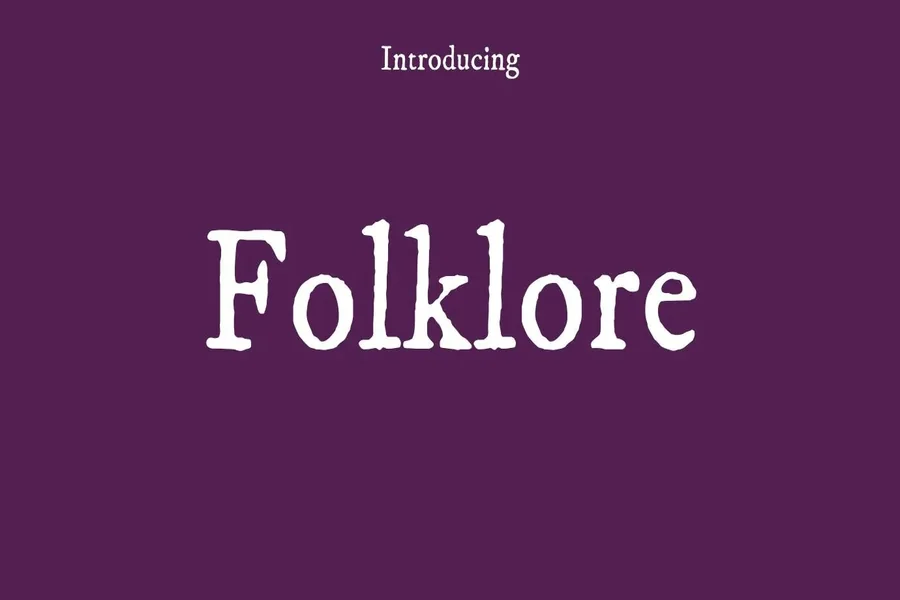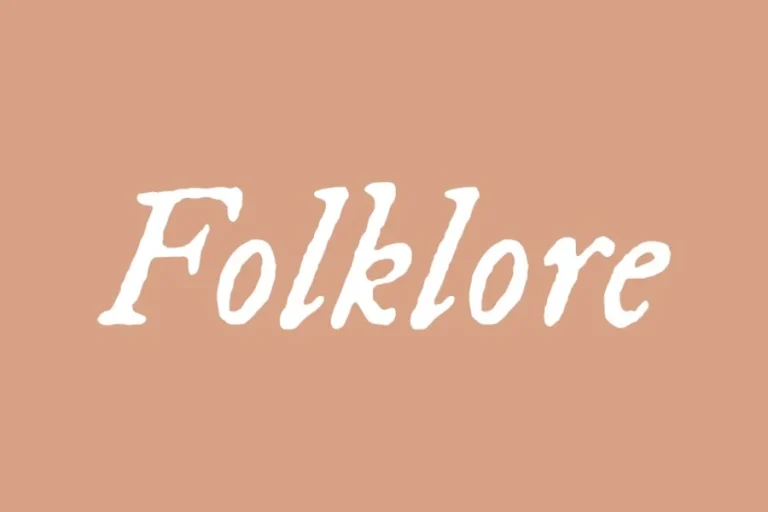
Folklore Font Style Guide For Creative Storytelling Design
Folklore Font bears a very cozy human tone which seems to have its origins in folklore history and fantasy. It has an artisan quality. The style of this font can remind of handwritten letters and old books village signs as well as cultural storytelling. Folklores Font is loved by designers as it puts soul on text. It is neither cold nor mechanical. It feels alive and personal.
Folklore Font is suitable in work where emotion and storyline is required. It relates well with readers. This typeface is common in book covers art poster children stories branding and hand made product labels. The lines are round and assertive. Letters are flowing in a normal manner that makes the message sound human.
Once people look at Folklore Font they get a sense of nostalgia warmness and comfort. The fact that it has an emotional pull makes it powerful in a modern design. This font style is used sparingly, although it makes even digital designs more intimate.
History and Inspiration Behind Folklore Font
Folklore Font is inspired by the handwriting and cultural scripts. Most of them are inspired by folk art of rural signs and oral stories. The goal is not perfection. The goal is expression.
Folklores Folk font designers tend to study brush strokes ink flow and movement of hands. This provides every letter with a character. Other letters might appear a little irregular but that is what makes it indulgent. This natural factor makes the font alive.
Folklore Font is also related to the traditions of storytelling as a multi-generational tradition. It is an expression of myths legends and oral stories. That is why it feels timeless. It does not belong to one era. It belongs to imagination.
Folklore Font is a popular author tool that is used by many creators when they want to convey authenticity. It is sincere and heart-rending. That is why it is applicable to book covers music artwork journals and creative branding.
Where Folklore Font Works Best
Folklore Font is an excellent font to use in creative areas. It glows in projects which prefer emotion to perfection. It is commonly used in book covers particularly in fantasy folklore and poetry. It is also quite appropriate in children stories and educational material.
Another of the strong areas is branding. Folklore Font is popular among handmade shops and artisan brands as well as small businesses to express personality. It assists the brands to become friendly and approachable.
This style is also advantageous to social media graphics. Posts that are artwork and storytelling are more interesting in this font. It helps to make digital screens warmer.
Folklore Font may also be used in posters where greeting cards and event invitations are being packaged. It is charming and not childlike. When applied in the right way it is an artistic and purposeful feeling.
How to Use Folklore Font in Design
Folklore font works well with clean layouts. Since it is charactered it should not be congested. combine it with plain backgrounds. Let the font breathe.
It is a good font to use as a headline. In case of long paragraphs a basic font can ease the reading. Nevertheless, short messages are lovely in Folklore Font.
Color choices matter too. Warm colors and soft pastel earth tones suit this fashion. Never use harsh neon colors except where one wants to create a playful contrast.
Spacing also matters. Give letters room to shine. Close spacing may help to make the text heavy. Space is equally spaced to make it readable and attractive.
Popular Styles and Variations of Folklore Font
Folklore Font has numerous variations. Some look more handwritten. Others are outspoken and fancy. There are some which are playful and others mystical.
You can come across styles that appear to be written with the ink brush. The others resemble carved wood or chalk. Both versions narrate another story.
These names reflect the spirit that Folklore Font represents. Each one fits storytelling and emotional design.
Is Folklore Font easy to read?
It is easy to read in short text. For long content it works best as headings.
Does Folklore Font suit modern design?
Yes when paired with clean layouts it blends tradition with modern style beautifully.
Where can I use Folklore Font creatively?
You can use it in books posters packaging branding social posts and art projects.
Is Folklore Font suitable for children content?
Yes its friendly and playful style makes it great for children stories and learning material.